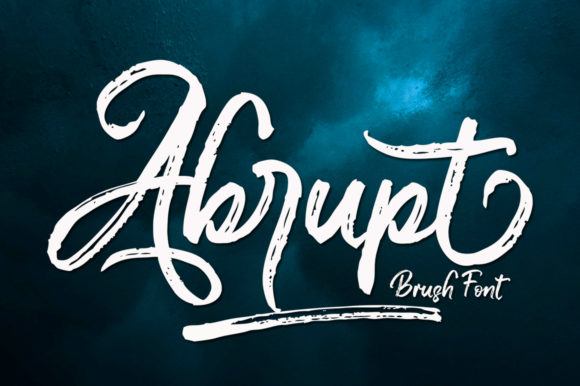
Abrupt Font: Elevate Your Designs with a Textured Brushed Handwritten Style
In the world of typography, fonts play a crucial role in conveying the tone and personality of a design. For designers and crafters looking to add a touch of uniqueness to their creations, the Abrupt Font is an excellent choice. This textured brushed handwritten font is not only visually appealing but also highly versatile, making it an invaluable asset to any font library.
What is Abrupt Font?
Abrupt Font is a carefully crafted, textured brushed handwritten font designed to bring a sense of authenticity and character to your designs. Its unique texture and brush strokes give it a distinct, hand-crafted feel that can instantly elevate your projects. Whether you’re working on a logo, a poster, a digital platform, or any other creative endeavor, Abrupt Font offers the perfect blend of style and readability.
One of the standout features of Abrupt Font is its PUA (Private Use Area) encoding. This means that accessing all the glyphs and swashes is incredibly straightforward. PUA encoding allows designers to easily access and use the extended character set, including alternates, ligatures, and swashes, without the need for complex software or technical knowledge. This feature ensures that you can seamlessly integrate the font into your workflow and explore its full creative potential.
Versatility Across Topics
The beauty of Abrupt Font lies in its versatility. Regardless of the topic or theme of your project, this font can adapt and complement it perfectly. From branding and advertising to packaging and digital content, Abrupt Font’s unique style can enhance any design. Its textured, brushed appearance adds a layer of depth and interest, making your creations stand out in a crowded visual landscape.
Why Choose Abrupt Font?
There are several reasons why Abrupt Font should be a part of your font library:
• Unique Style: Offers a distinctive textured brushed handwritten look that can add character to your designs.
• PUA Encoded: Provides easy access to all glyphs and swashes, enhancing usability.
• Versatility: Suitable for a wide range of projects, from digital content to print materials.
• Ease of Use: Compatible with most design software, making it easy to integrate into your workflow.
Applications of Abrupt Font
Abrupt Font’s adaptability makes it suitable for various applications, including:
• Branding and Logo Design: Create memorable and impactful logos with a personal touch.
• Marketing Materials: Enhance your brochures, flyers, and posters with a unique typographic style.
• Digital Content: Add a touch of personality to your website, social media posts, and digital advertisements.
• Packaging Design: Stand out on store shelves with eye-catching, custom typography.
Abrupt Font is more than just a font; it’s a design tool that can transform your creative projects. Its textured brushed handwritten style, combined with PUA encoding for easy access to glyphs and swashes, makes it an incredibly valuable asset for designers and crafters. Whether you’re looking to add a personal touch to your branding, create engaging marketing materials, or simply explore new typographic possibilities, Abrupt Font is an excellent choice. Elevate your designs and expand your creative horizons with this versatile and visually appealing font.